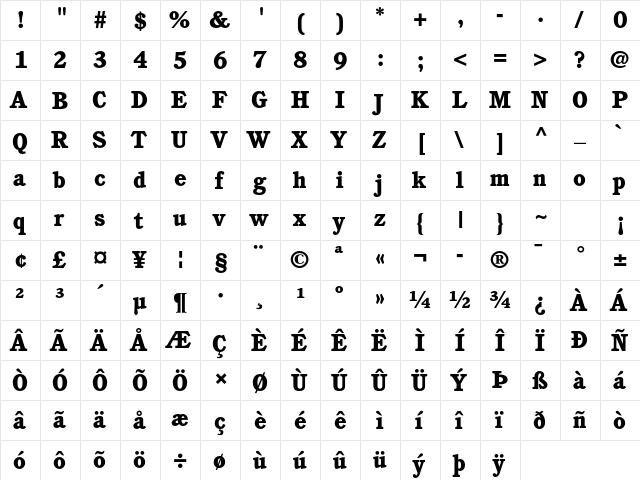
ITC Cushing Std Heavy
| Designer | Vincent Pacella |
Design Context for ITC Cushing Std Typeface
ITC Cushing Std offers clean, dependable letterforms without strong stylistic allegiance, making it a practical choice for designers who need flexibility.